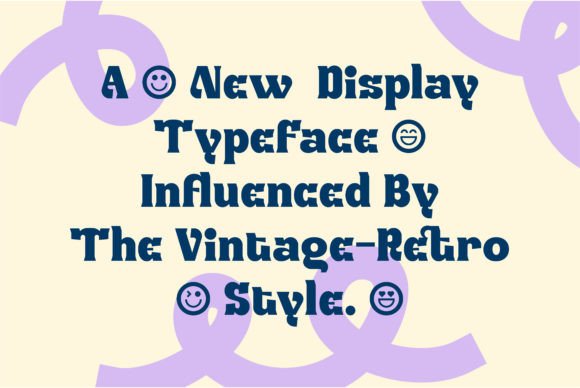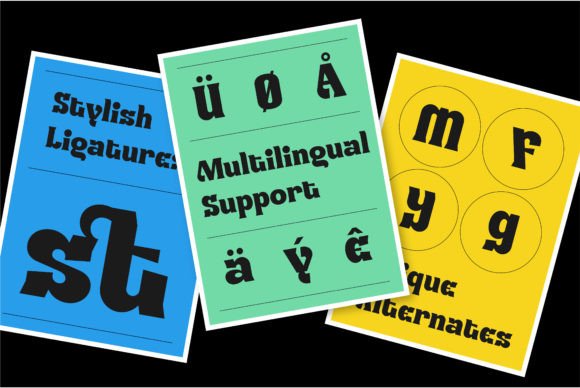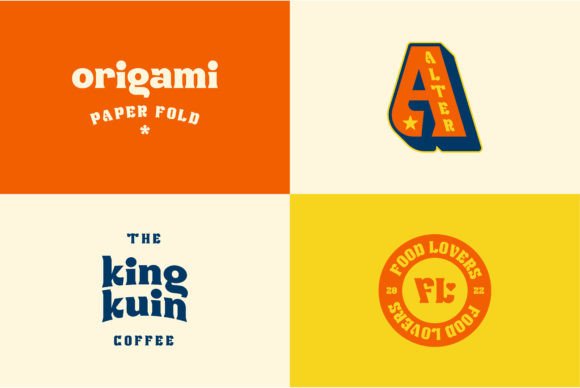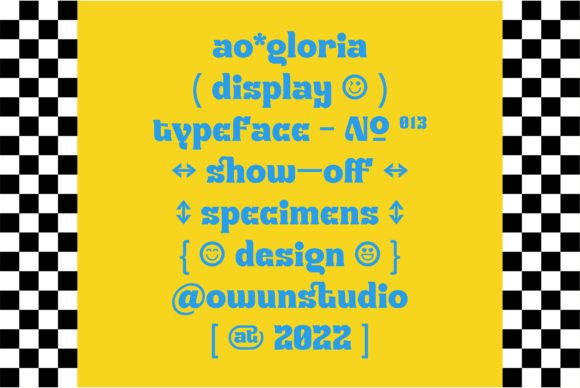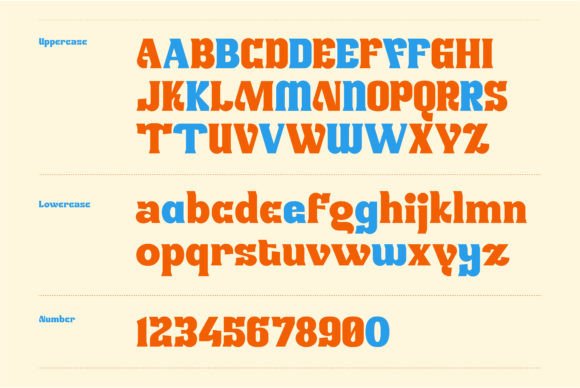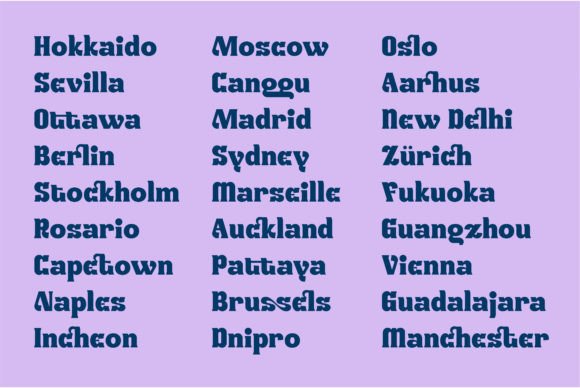
Discover the Vibrant World of AO Gloria Font: Elevate Your Designs with this Adventurous Typeface
In the realm of typography, few fonts manage to capture the essence of adventure and creativity as effectively as the AO Gloria Font. This stunning typeface is designed to make a statement, boasting a heavy structure that commands attention and leaves a lasting impression on viewers. Whether you’re a designer looking to elevate your projects or a crafter seeking to add a personal touch to your creations, AO Gloria is the perfect choice for headlines and large prints.
The Perfect Blend of Boldness and Elegance
AO Gloria’s bold structure is its most striking feature, making it an ideal font for those who want to create impactful designs. Its heavy strokes and confident demeanor ensure that your message is conveyed with clarity and authority, making it perfect for headlines, titles, and large-format prints. However, what truly sets AO Gloria apart is its ability to balance boldness with elegance. The font’s clean lines and well-defined letterforms prevent it from feeling overly aggressive, instead exuding a sense of refined confidence.
Add a Touch of Sophistication with Stylistic Ligatures
One of the standout features of AO Gloria is its inclusion of stylistic ligatures. These special character combinations allow designers to add an extra layer of sophistication and flair to their work. Ligatures can help to create a more organic and flowing feel in your text, making it perfect for designs where you want to convey a sense of luxury, creativity, or innovation. With AO Gloria, you can easily incorporate these stylistic ligatures into your projects, taking your designs to the next level.
The versatility of AO Gloria makes it an excellent addition to any designer’s or crafter’s toolkit. Here are just a few examples of how you can use this amazing font:
- Headlines and Titles: Use AO Gloria to create eye-catching headlines and titles that demand attention. Its bold structure ensures that your message is conveyed with clarity and impact.
- Large-Format Prints: Whether you’re designing posters, banners, or billboards, AO Gloria is the perfect choice. Its heavy strokes and confident demeanor make it easy to read from a distance.
- Branding and Logo Design: AO Gloria’s unique blend of boldness and elegance makes it an excellent choice for branding and logo design. Use it to create a lasting impression on your customers and set your brand apart.
- Digital and Print Media: From social media graphics to magazine covers, AO Gloria can be used in a wide range of digital and print media applications.
Why Choose AO Gloria Font?
With so many fonts available, why choose AO Gloria? Here are just a few reasons why designers and crafters are falling in love with this adventurous typeface:
- Unique and Memorable: AO Gloria’s bold structure and stylistic ligatures make it a unique and memorable font that will help your designs stand out.
- Highly Versatile: Whether you’re designing for print or digital media, AO Gloria can be used in a wide range of applications.
- Easily Readable: Despite its bold structure, AO Gloria is surprisingly easy to read, making it perfect for headlines and large-format prints.
In conclusion, AO Gloria Font is a game-changer for designers and crafters looking to elevate their projects with a bold and adventurous typeface. Its unique blend of boldness and elegance, combined with its stylistic ligatures and versatility, make it the perfect choice for headlines, large prints, and a wide range of design applications. So why wait? Discover the vibrant world of AO Gloria Font today and take your designs to new heights!